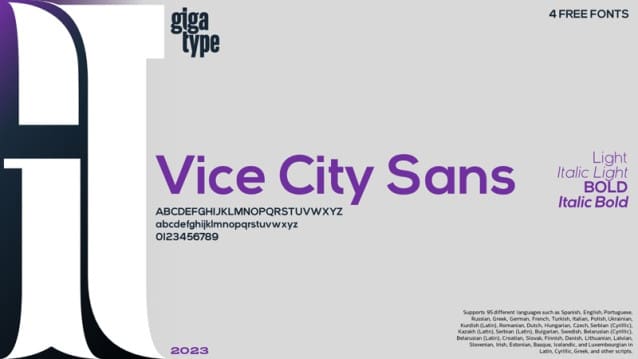
GT Vice City Sans Font
GT Vice City Sans Font a bold statement with our latest sans-serif font. With its clean lines and modern appeal, this font is sure to turn heads and leave a lasting impression. Perfect for headlines, logos, and any design that demands attention. It is both functional and stylish, making it a versatile choice for a wide range of design projects.
Vice City Sans supports Latin, Cyrillic, Greek and other languages.